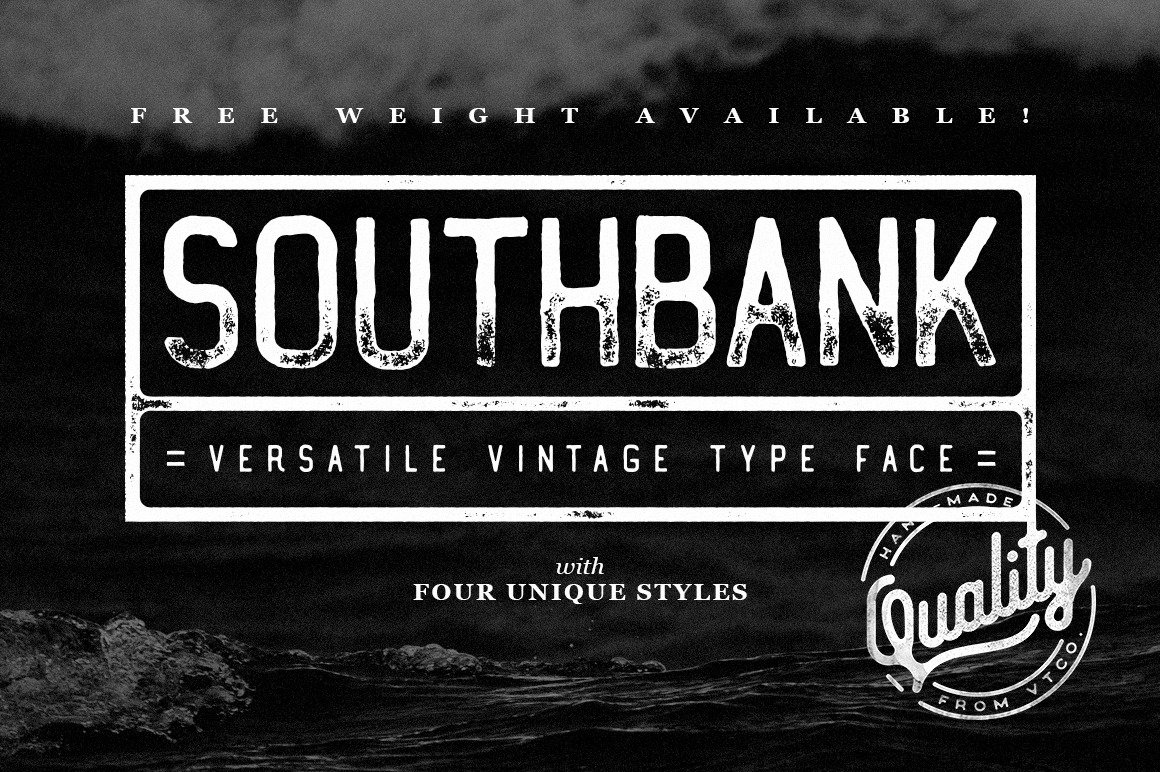
Southbank Display Font
Southbank Display Font is the latest font from Vintage Type Co. and comes with packed 4 unique styles, each with an italic, and inked counterpart. Whatever you're designing, one of these styles is sure to fit your needs!
Aside from coming in 4 styles, with italics and grungy distressed versions, Southbank Display Font comes with multilingual support for an array of latin and western European languages, as well as basic cyrillic.